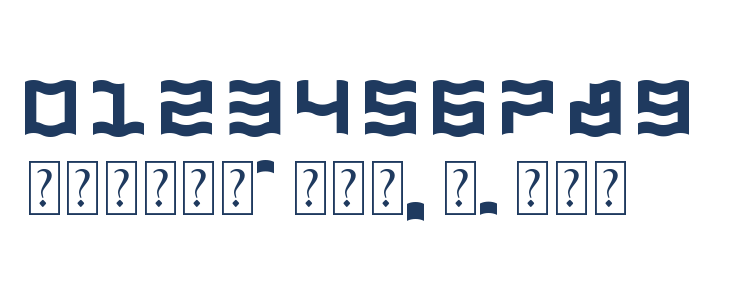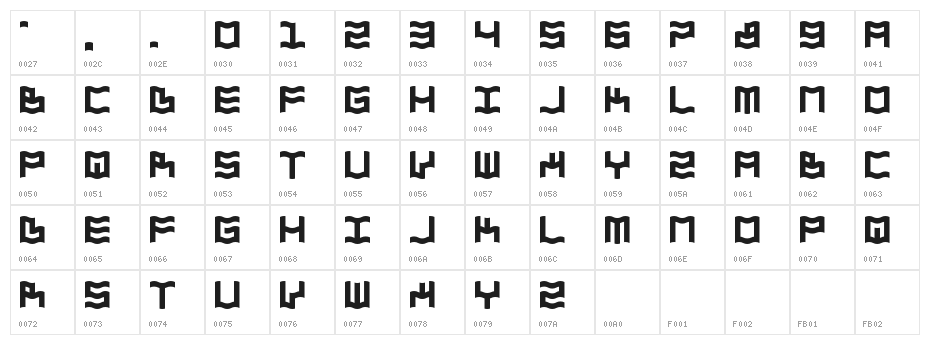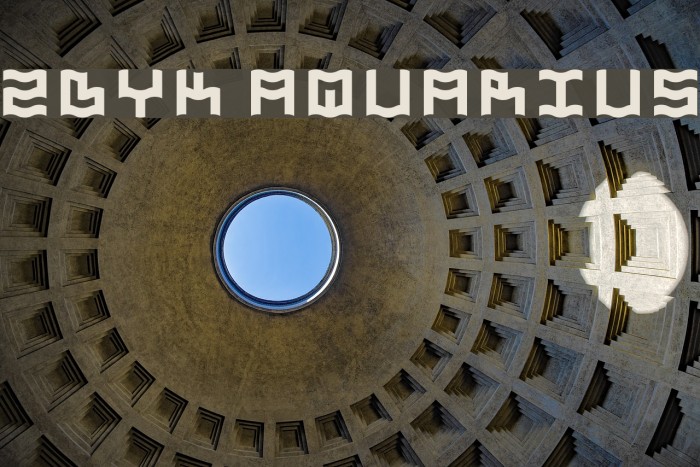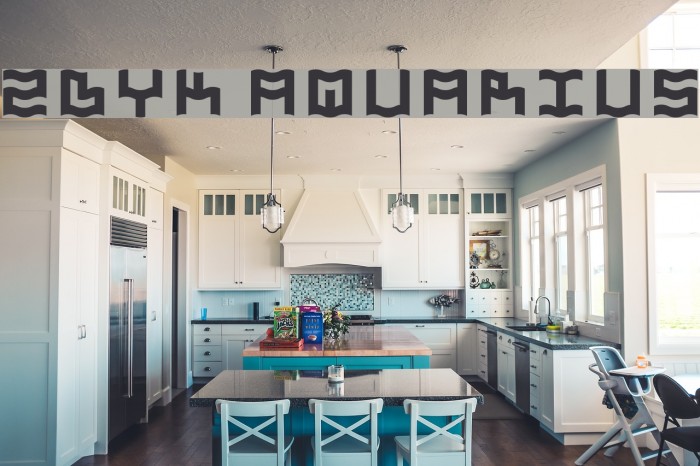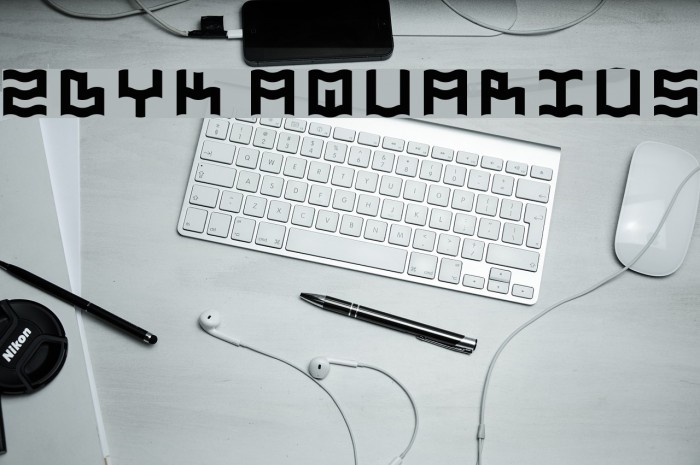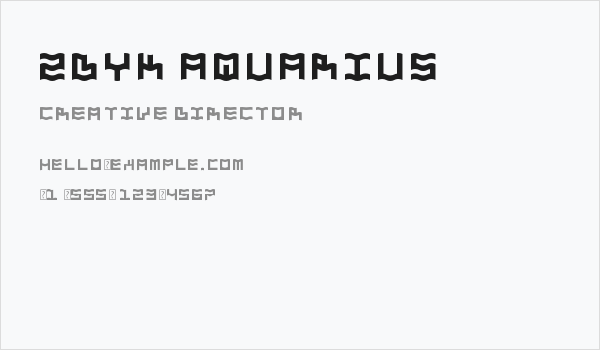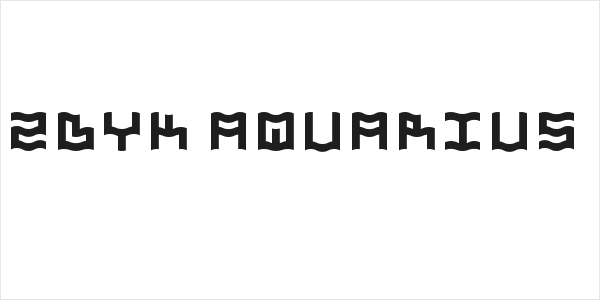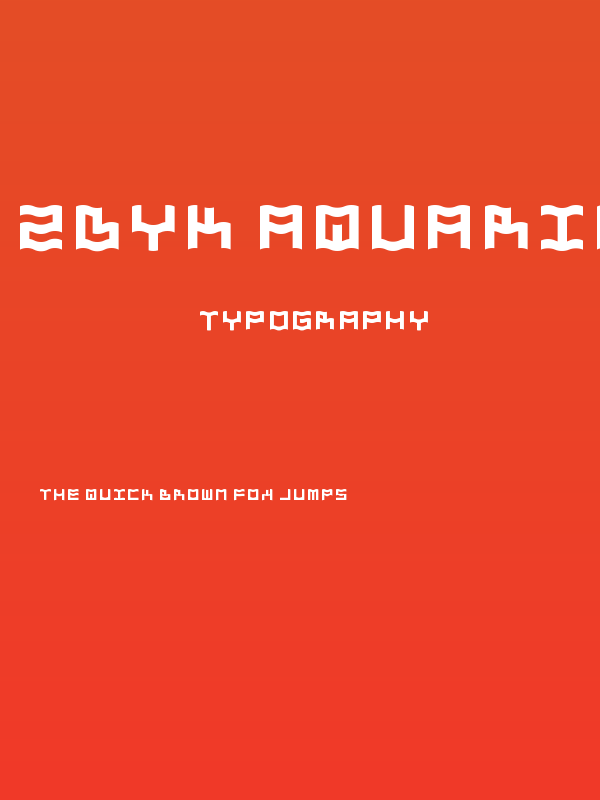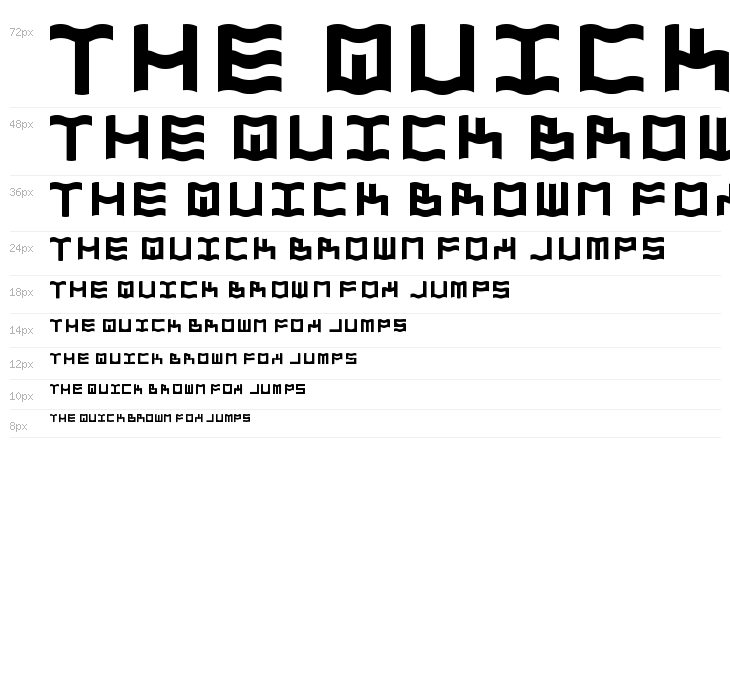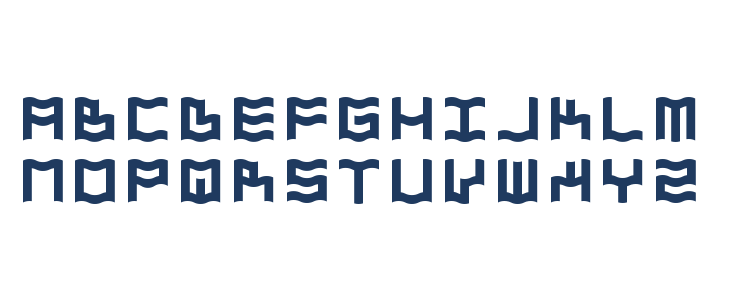
Zdyk Aquarius Font
Zdyk Aquarius Description
This font features a unique and modern design with a distinct wave-like pattern integrated into each character, creating a sense of movement and fluidity. The uppercase and lowercase letters maintain a consistent style, with bold, geometric shapes that are both eye-catching and legible. The numbers and special characters follow the same design principles, ensuring a cohesive look across all glyphs. The font's boldness and distinctive style make it suitable for creative and artistic projects, where a strong visual impact is desired. Its decorative nature lends itself well to headlines, posters, and branding materials that aim to stand out.